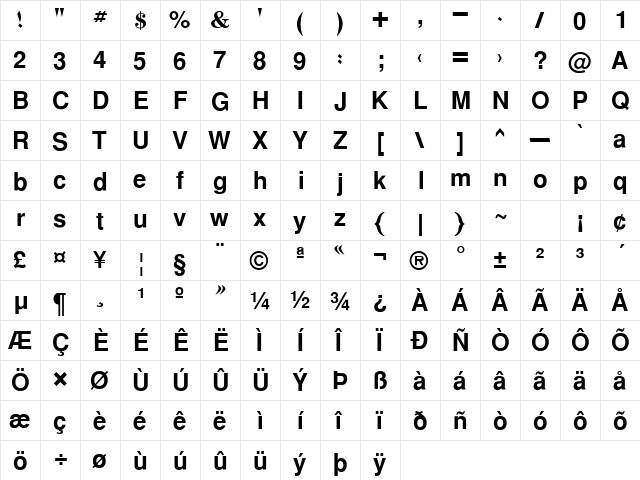
WinSoft Thuluth Pro Bold
| Foundry | WinSoft S. A. |
| Designer | Mourad Boutros |
Design Context for WinSoft Thuluth Pro Typeface
WinSoft Thuluth Pro is a composed and adaptable typeface that performs quietly and consistently across a wide range of design contexts. The heavy weight commands attention and anchors typographic hierarchies.